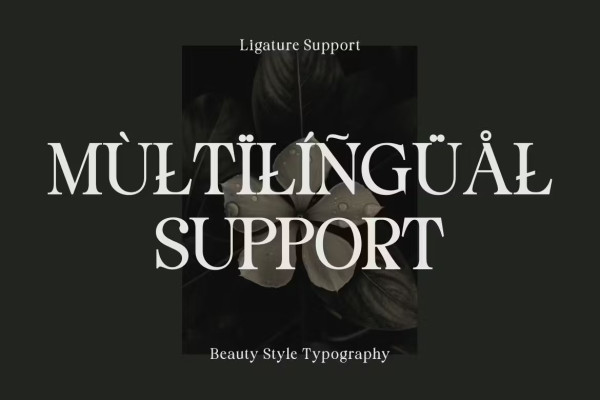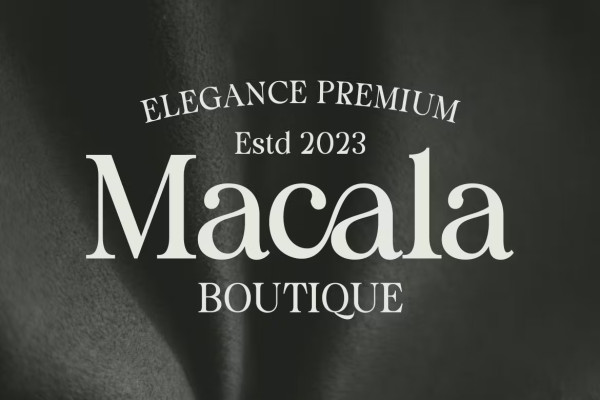
Staller Font
Staller Font –  Modern Font is a bold and authentic serif display font. The font is suitable for any branding project such as logo, Template design, product and many more. She is exceptional in a wide range of contexts